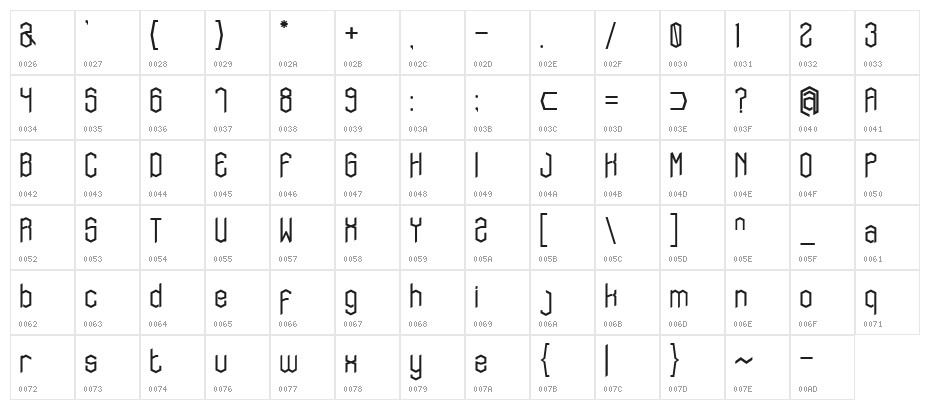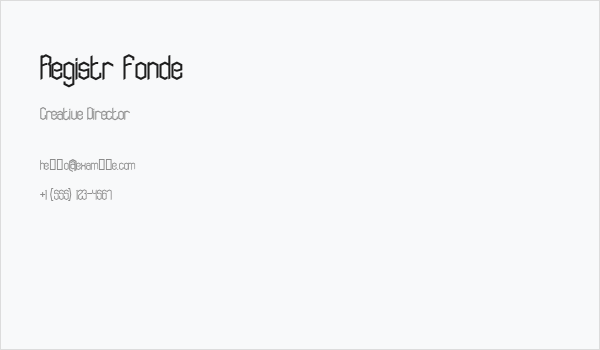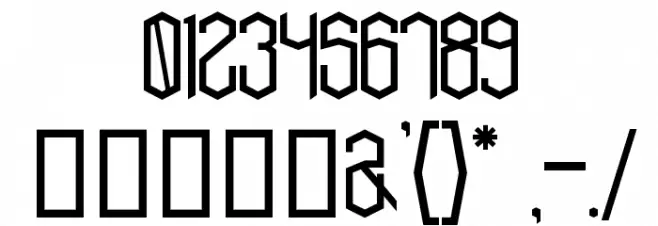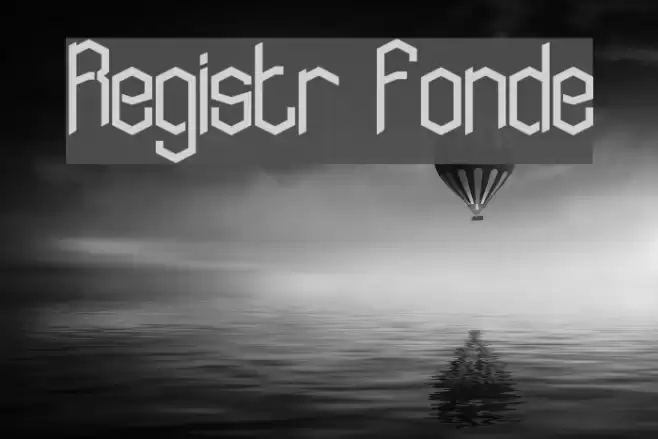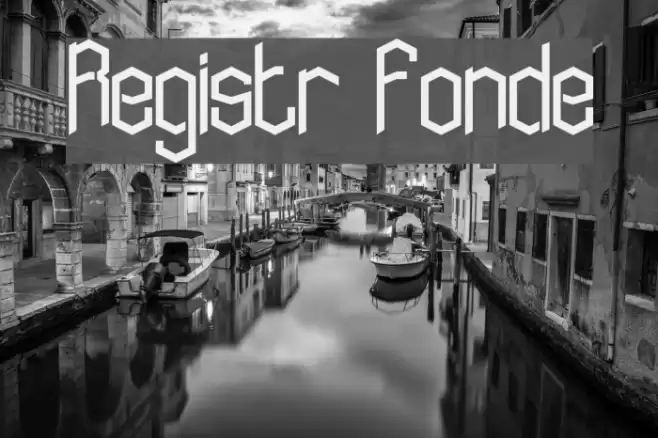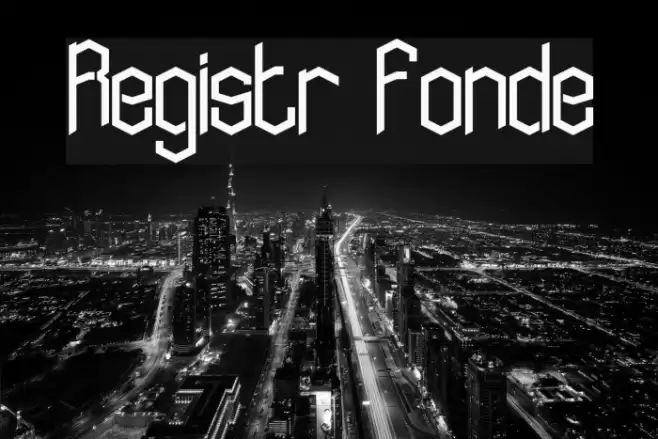
Registr Fonde Font
Registr Fonde Description
This font features a geometric and angular design, characterized by sharp edges and a modern, futuristic aesthetic. The uppercase and lowercase letters maintain a consistent height, creating a uniform appearance. The numerals and special characters follow the same angular style, ensuring cohesion across all characters. The font's structure is bold and striking, making it ideal for attention-grabbing designs. Its unique style is reminiscent of digital or sci-fi themes, with a distinct emphasis on straight lines and sharp corners.
| Proposed Projects | Ideal for sci-fi themed posters, digital artwork, video game graphics, and modern branding projects. |